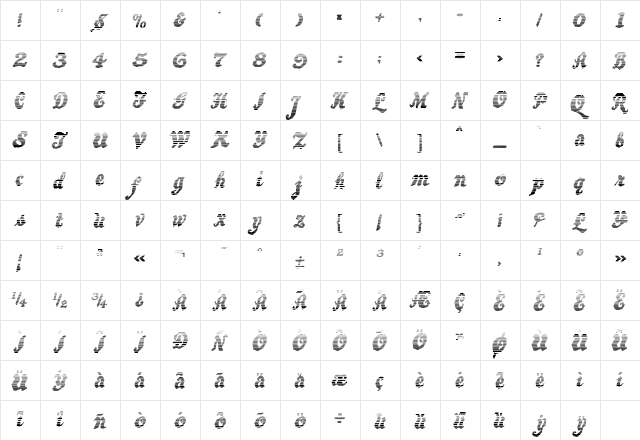
BewareTheNeighboors Shadow Regular
| Foundry | Paulo W, IntellectaDesign |
Design Context for BewareTheNeighboors Shadow Typeface
BewareTheNeighboors Shadow is built around its visual character rather than neutral utility — its distinctive forms are designed to make an impression at display sizes.
Font Pairing: Pair with a clean neutral sans-serif for body copy to let BewareTheNeighboors Shadow's character lead without overwhelming the composition.
Pro Tip: Use BewareTheNeighboors Shadow exclusively at display sizes — it was designed to be seen, not read at length. Let a neutral companion handle body copy.